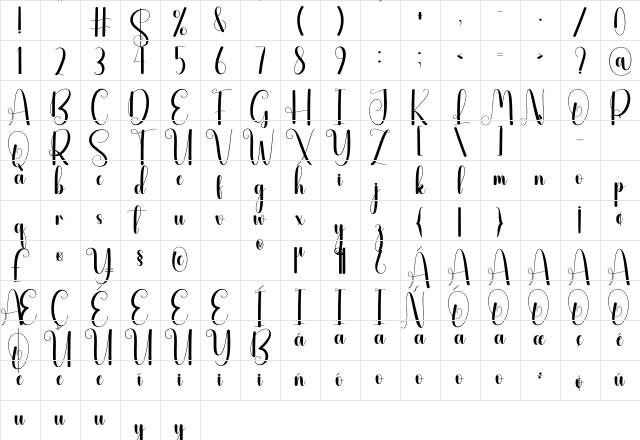
Activeday Regular Free Font
Activeday Regular
Design Context for Activeday
Activeday is a composed and adaptable typeface that performs quietly and consistently across a wide range of design contexts.